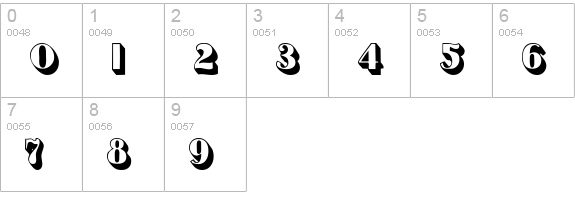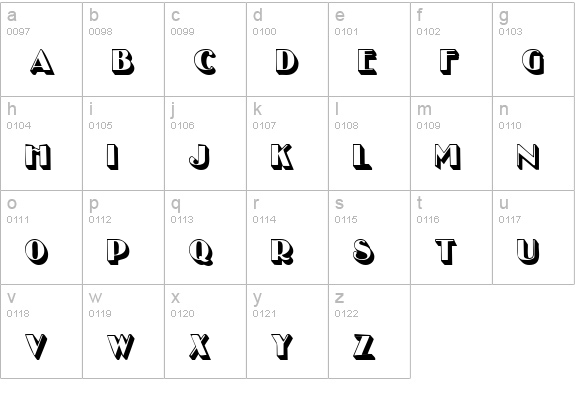
EsplanadeDisplay Font Details
Introducing EsplanadeDisplay font, a sophisticated and elegant typeface that exudes charm and versatility. With its sleek lines and modern aesthetic, EsplanadeDisplay is perfect for creating stunning designs that leave a lasting impression. Whether you're working on a branding project, editorial layout, or any creative endeavor, this font will elevate your work to new heights. EsplanadeDisplay is a free font that combines classic elegance with a contemporary edge, making it ideal for a wide range of design applications. Its unique character sets and stylish letterforms will add a touch of sophistication to any project. Best of all, this font is freely available to download at FontsMarket.com, giving you easy access to enhance your design projects with this exceptional typeface. Immerse yourself in the world of EsplanadeDisplay font and unleash your creativity with this versatile and stylish typeface. Elevate your designs with its sophisticated charm and make a statement with every letter. Download EsplanadeDisplay for free at FontsMarket.com and let your creativity shine.